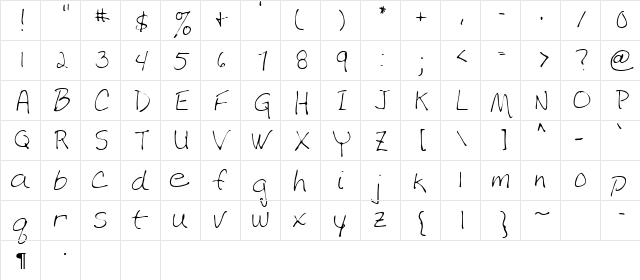
Bobcat Regular
Design Context for Bobcat Typeface
Bobcat is a composed and adaptable typeface that performs quietly and consistently across a wide range of design contexts.